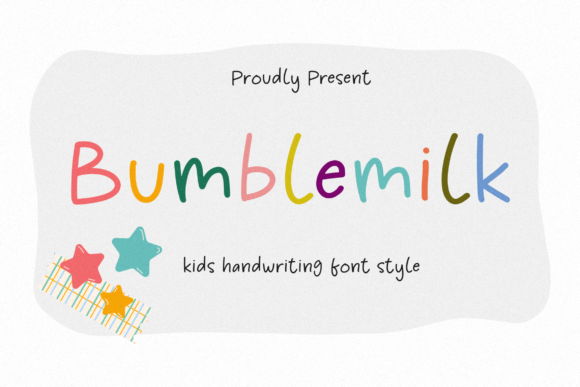
Bumblemilk Font: The Sweetest Kid’s Handwriting Font for Creative Projects
In the world of typography, fonts play a crucial role in conveying messages, expressing emotions, and creating visual identities. Among the numerous font styles available, Bumblemilk stands out as a delightful kid’s handwriting font that has captured the hearts of designers and creative enthusiasts alike. In this article, we’ll dive into the world of Bumblemilk, exploring its features, uses, and benefits for various creative projects.
What is Bumblemilk?
Bumblemilk is a charming kid’s handwriting font style that exudes innocence, playfulness, and warmth. Its unique, hand-crafted design makes it perfect for adding a personal touch to various creative projects. Whether you’re a designer, artist, or simply a DIY enthusiast, Bumblemilk is an excellent choice for those seeking a font that resonates with a youthful and carefree spirit.
Key Features of Bumblemilk Font
- Handwritten style: Bumblemilk boasts a genuine, handwritten look that adds a touch of personality to any project.
- Kid-friendly design: The font’s playful and innocent design makes it perfect for projects targeting children or a younger audience.
- Versatile: Bumblemilk can be used for a wide range of creative projects, from product packaging to social media graphics.
- Easily readable: Despite its playful nature, Bumblemilk remains easily readable, making it suitable for both headings and body text.
Creative Ways to Use Bumblemilk Font
Bumblemilk’s versatility makes it an excellent choice for various creative projects. Here are some inspiring ways to use this delightful font:
- Product packaging: Add a personal touch to your product packaging with Bumblemilk’s playful and eye-catching design.
- Branding projects: Use Bumblemilk to create a unique and memorable brand identity that resonates with your target audience.
- Magazines and publications: Bumblemilk is perfect for headings, titles, and captions in magazines, newspapers, and other publications.
- Social media graphics: Create engaging social media graphics, such as Instagram posts, Facebook updates, and Twitter headers, with Bumblemilk’s fun and playful design.
- Weddings and events: Use Bumblemilk to add a touch of whimsy and romance to wedding invitations, party decorations, and other event materials.
Benefits of Using Bumblemilk Font
So, why choose Bumblemilk for your creative projects? Here are some benefits of using this delightful font:
- Unique and distinctive: Bumblemilk’s handwriting style sets it apart from more traditional fonts, making it perfect for projects that require a personal touch.
- Emotional connection: Bumblemilk’s playful and innocent design helps create an emotional connection with your audience, making your message more relatable and engaging.
- Flexibility: Bumblemilk can be used for both digital and print projects, making it a versatile font for various creative applications.
- Ease of use: Bumblemilk is easy to read and works well in various contexts, making it a practical choice for designers and non-designers alike.
Tips for Using Bumblemilk Font Effectively
To get the most out of Bumblemilk, here are some valuable tips to keep in mind:
- Pair with complementary fonts: Combine Bumblemilk with other fonts that complement its playful style, such as sans-serif fonts for body text.
- Use contrasting colors: Create visual interest by pairing Bumblemilk with contrasting colors that make your text stand out.
- Experiment with sizes and styles: Play with different font sizes and styles to create visual hierarchy and add emphasis to your text.
- Keep it simple: Avoid overusing Bumblemilk; use it sparingly to maintain its impact and effectiveness.
In conclusion, Bumblemilk is a delightful kid’s handwriting font that offers a unique and playful way to express yourself through typography. Its versatility, readability, and emotional connection make it an excellent choice for various creative projects, from product packaging to social media graphics. By following the tips outlined above, you can harness the full potential of Bumblemilk and add a touch of whimsy to your designs.